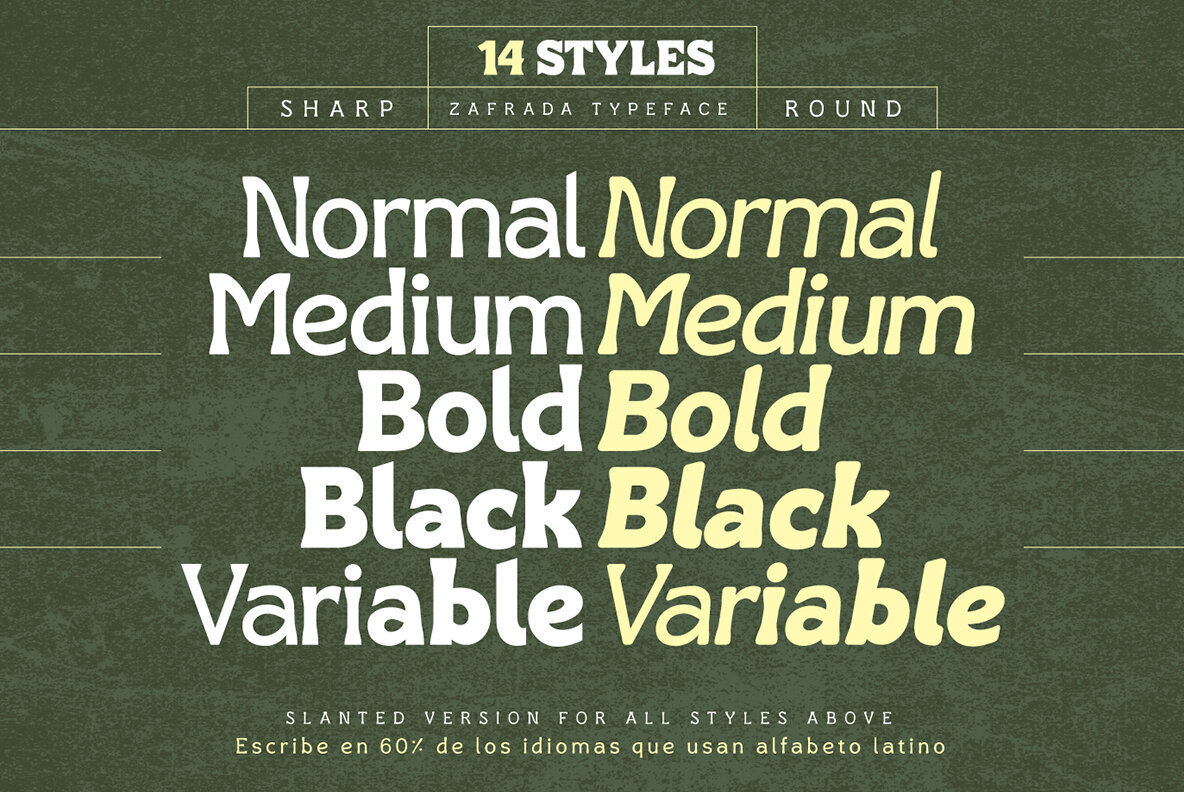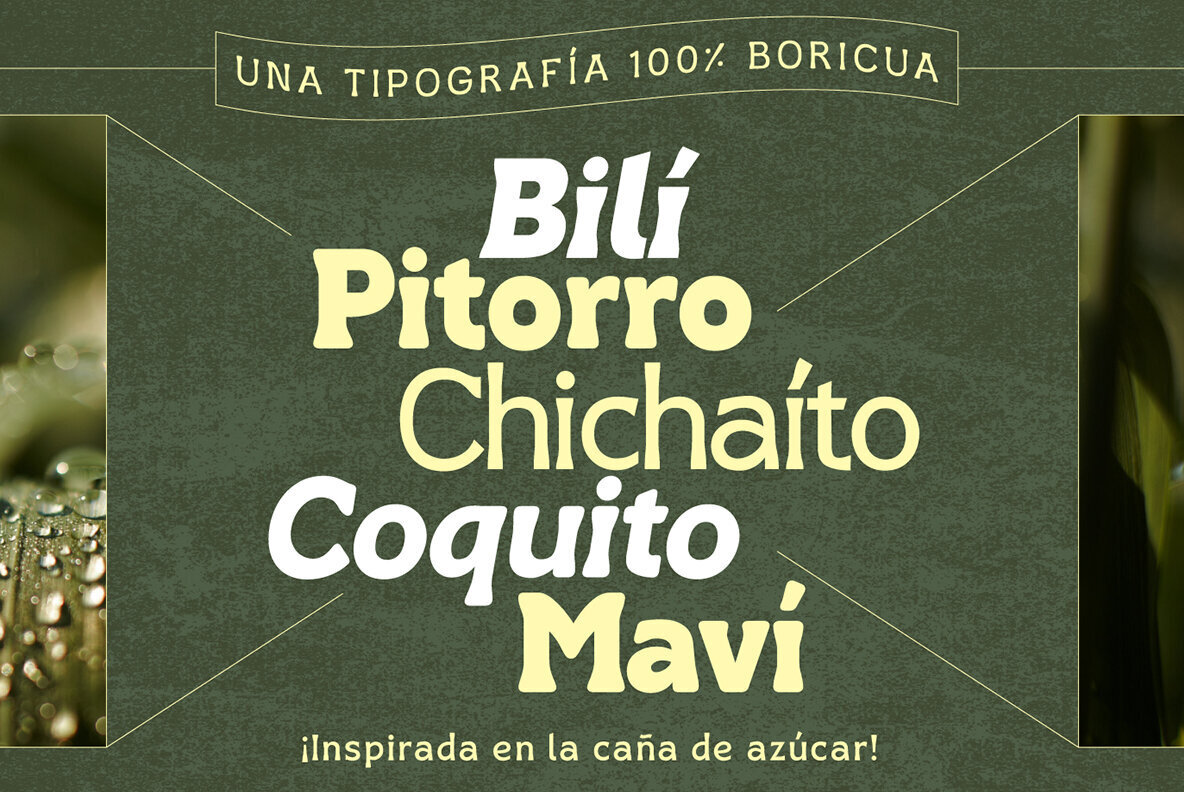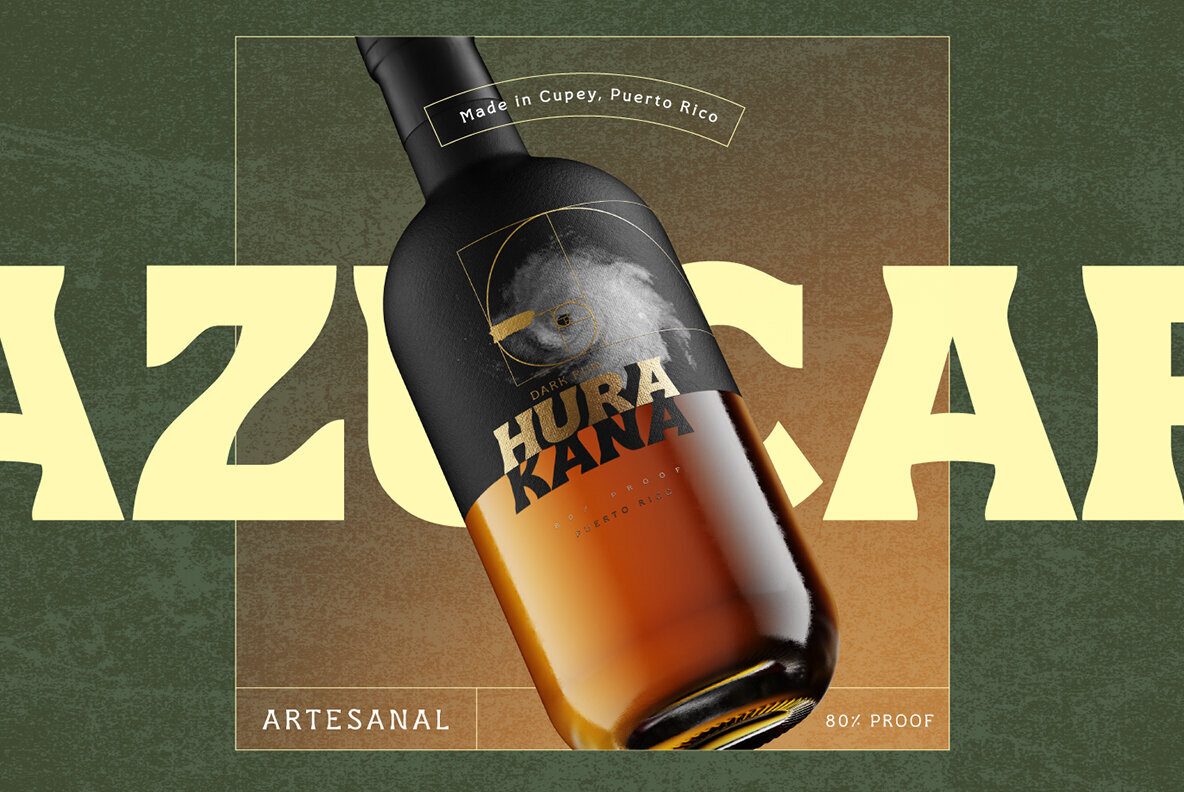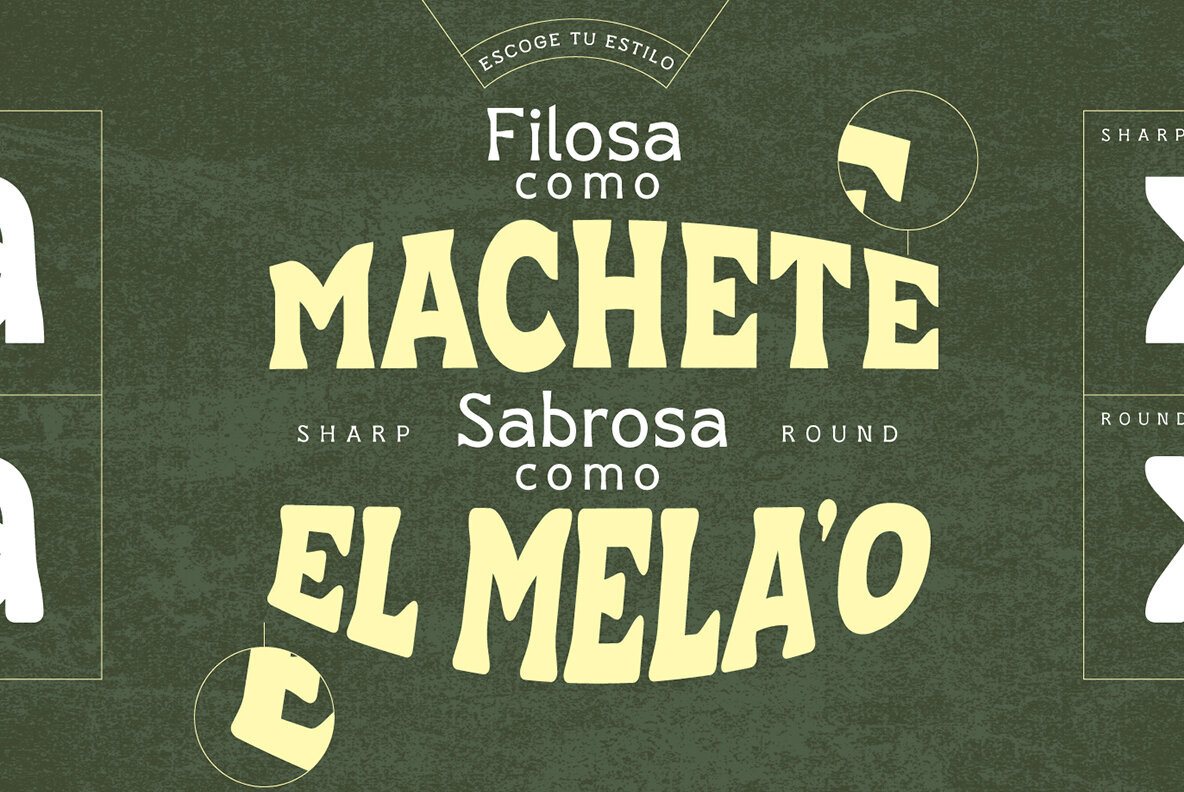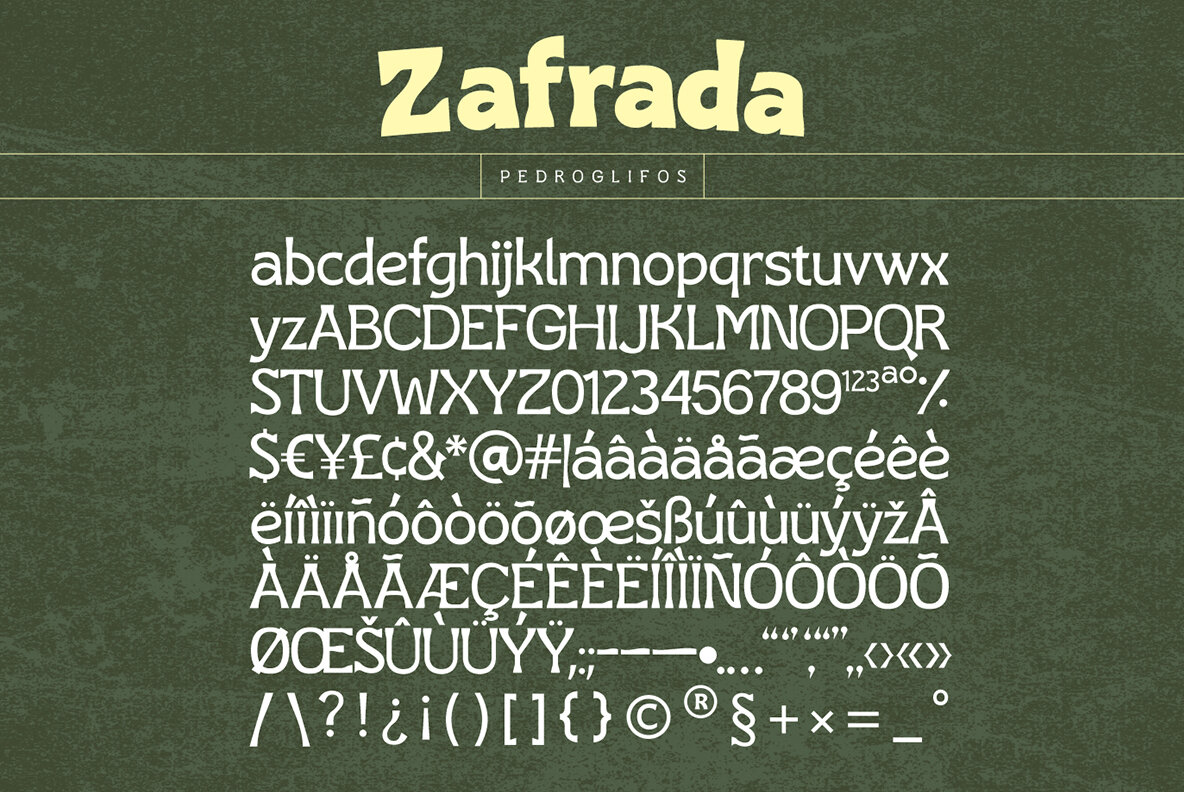
Zafrada Font
Zafrada features classic wedge serifs that can be sharp like a machete or round like molasses. Inspired in the sugar cane, this typeface brings great display legibility with versatile expressions. While the edgy version reminds us of classical rustic grotesk typefaces, the round version brightness the tone considerably. Be it display, branding, campaigns or content creation, this font has a sure space in many projects for it's reliable and versatile nature.